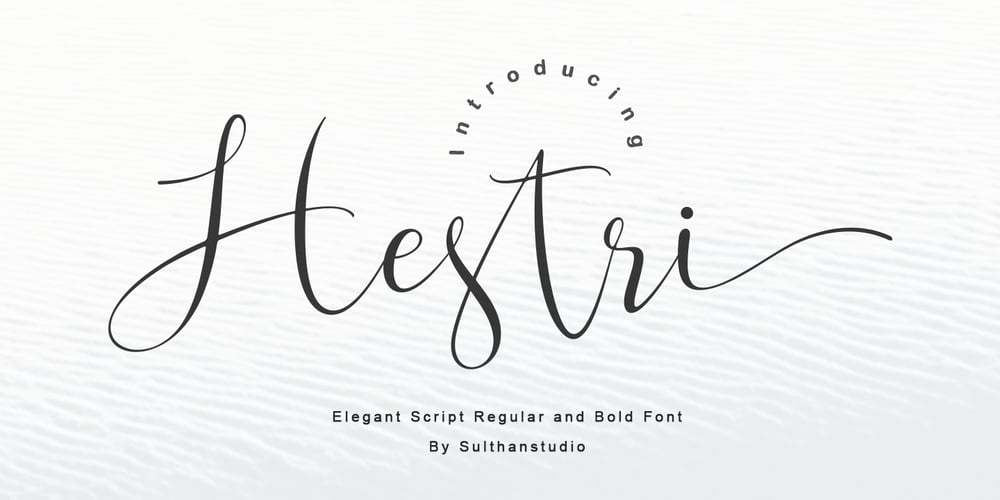
Hesti script Font Family was designed by Nasrullah and published by Sulthan Studio. Hesti script contains 2 styles and family package options. Hestri script is a beautiful and delicate handmade font with unique characteristics, a font with aesthetic characteristics has thin and elegant lines giving a soft and minimal impression and also has a thick and smooth style that is equipped with uppercase and lowercase letters, numbers, punctuation, language support and also swashes and ligatures.